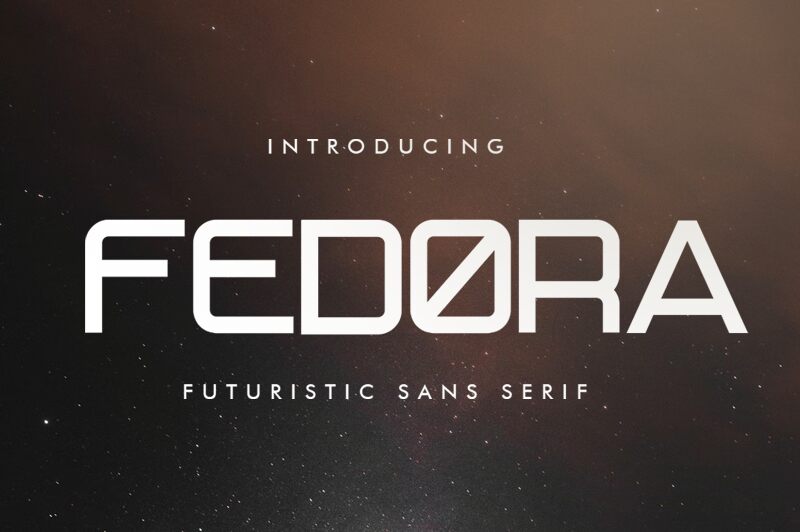
FEDORA
Fedora, crafted by Vultype, is a display font that exudes modernity with its techno style. Its expanded form makes a bold statement, capturing attention with clean, precise lines that convey a sense of futuristic sophistication. The distinctive geometry of Fedora gives it an aesthetic edge that’s both sleek and commanding.
This font shines in contexts where impact is key — think branding for cutting-edge technology companies, promotional materials for avant-garde events, or titles for sci-fi film posters. Fedora's style would also complement any design project looking to inject a touch of the contemporary or to stand out with an air of high-tech chic.